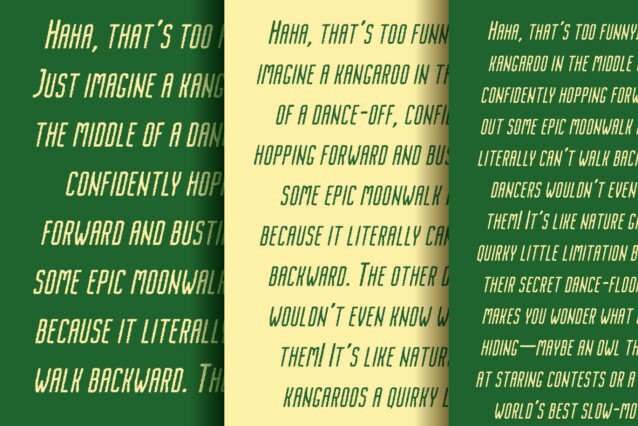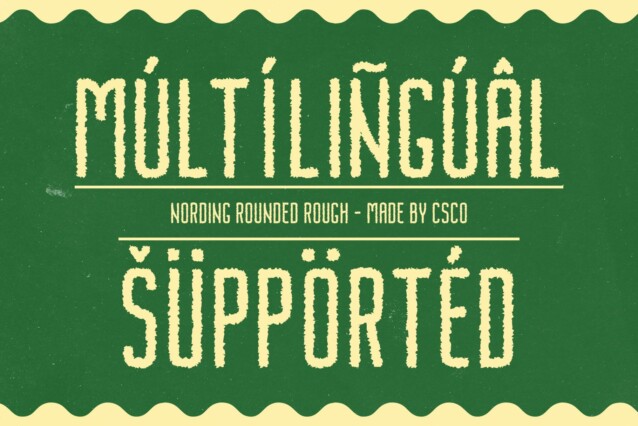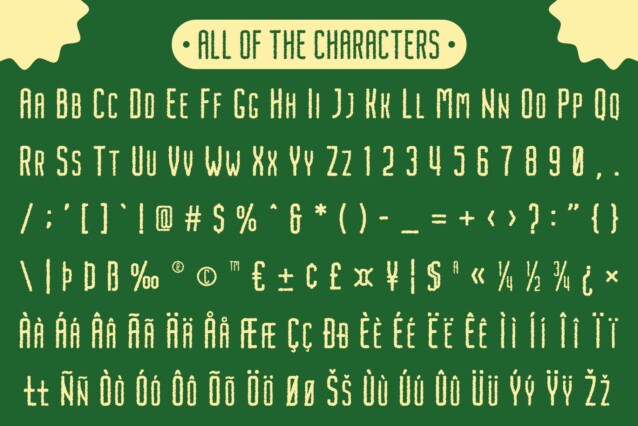
Nordin Rounded Rough Font
Nordin Rounded Rough Font is a modern sans-serif font that effortlessly blends a condensed, rounded form with a rugged, rough texture. Its sleek, compact design is perfect for tight spaces like titles, headlines, or any design element where maximizing space without sacrificing readability is essential. The rounded edges soften the overall appearance, making the font more approachable, while the condensed shape ensures that it remains bold and impactful, even at smaller sizes.